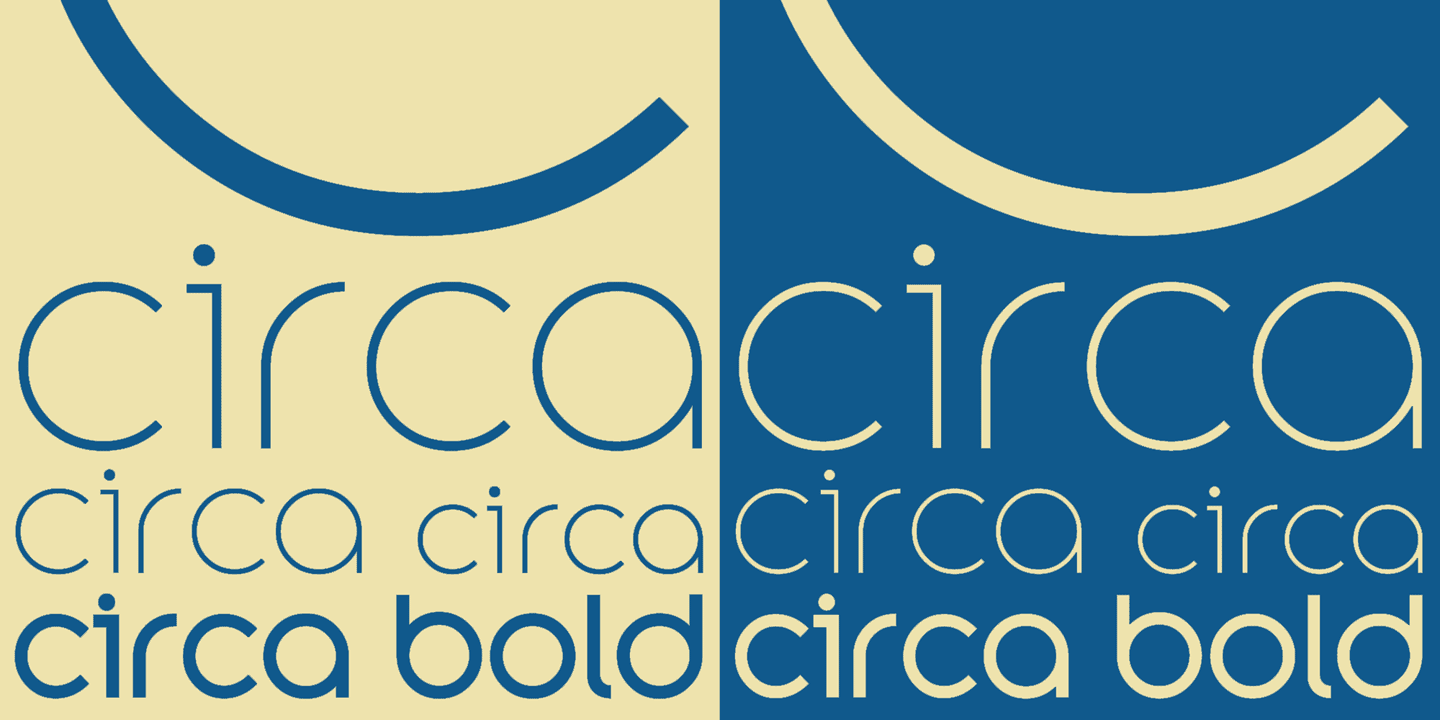
Circa Font is perfect for historical museums, vintage antique stores, period documentary titles, classic literature publications, historical timeline displays, heritage preservation societies, archaeological exhibits, retro design studios, historical research institutions, and authentic period-inspired designs.
Circa Font is exciting because it travels through time with historical precision and period authenticity through timeless letterforms that capture the essence of bygone eras and the scholarly dignity of historical documentation, making it perfect for brands celebrating heritage, tradition, and the enduring value of historical knowledge.
The Circa Font family includes regular and bold weights with period-appropriate styling, historical ornaments, and vintage decorative elements, providing designers with scholarly tools for creating typography that speaks with authentic historical authority and academic sophistication.
When your project needs historical authenticity and period accuracy, Circa Font Free Download delivers the perfect typographic time capsule for heritage communications. This distinguished typeface combines historical design principles with contemporary functionality, ensuring your brands resonate with audiences seeking genuine historical experiences and scholarly credibility. The timeless letterforms and period styling make this font an essential choice for museums, educational institutions, and any application where historical accuracy, scholarly authority, and period authenticity are crucial for establishing credibility and connecting with communities that value the preservation of historical knowledge and the important work of documenting our shared human heritage across the centuries that define our collective story and cultural legacy.